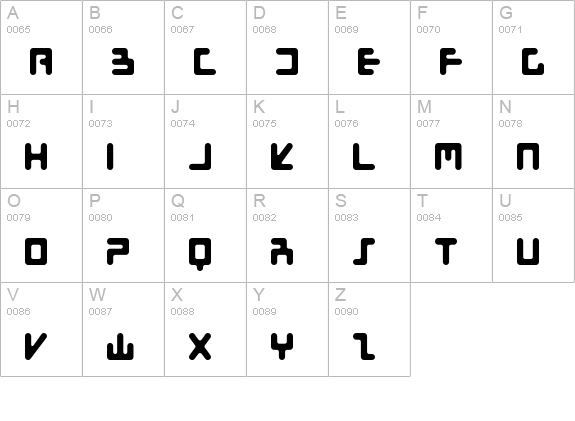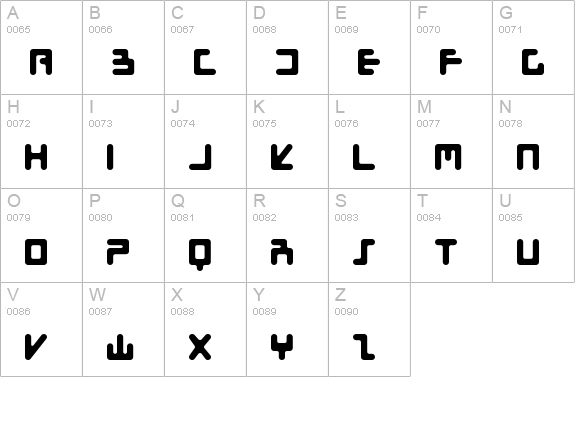
Flotsam Stiff Upper font is a versatile and elegant typeface that exudes sophistication and charm. Its sleek lines and classic design make it perfect for a wide range of projects, from invitations to branding. The Flotsam Stiff Upper font features a unique blend of modernity and tradition, making it a timeless choice for any design need. What sets Flotsam Stiff Upper font apart is its free availability for download at FontsMarket.com. This means that you can easily access this high-quality font without any cost, making it a valuable resource for designers and creatives alike. With Flotsam Stiff Upper font, you can elevate your projects and add a touch of elegance and refinement. Download it today and unlock the endless possibilities that this beautiful font has to offer.